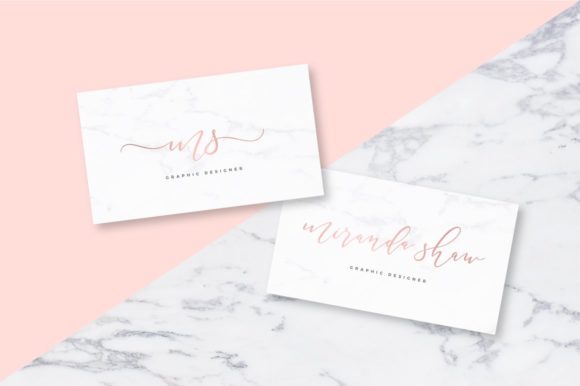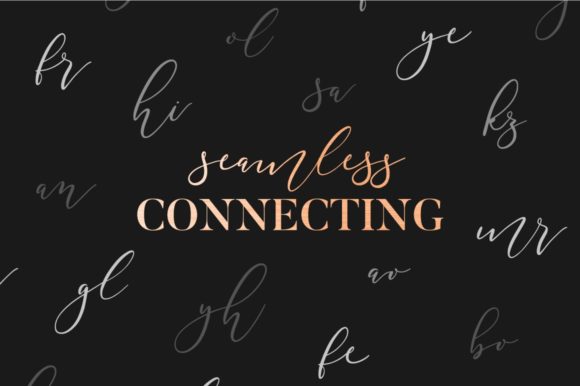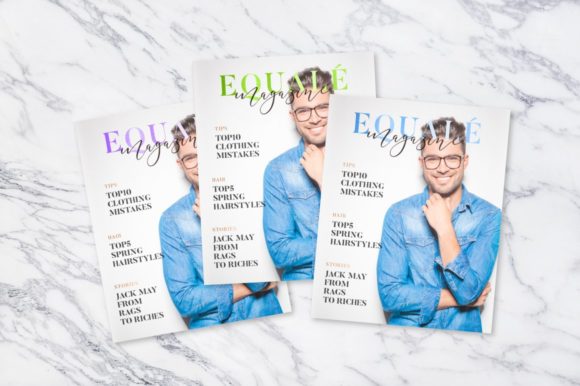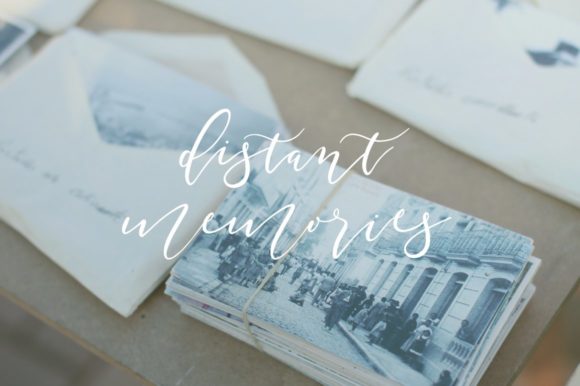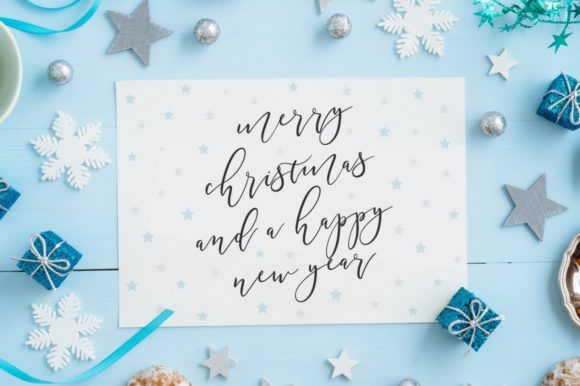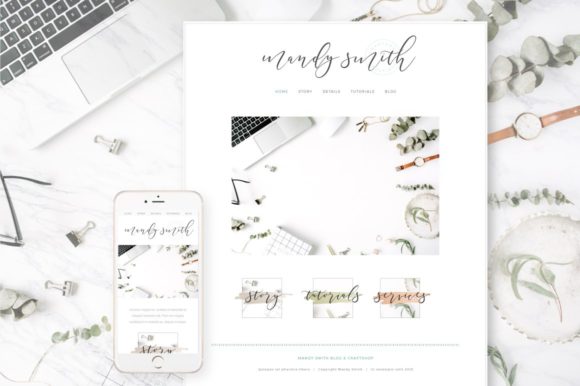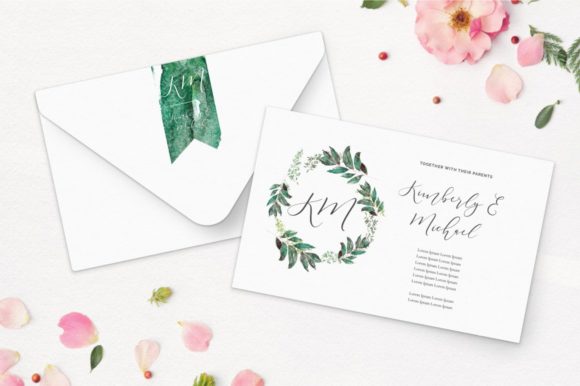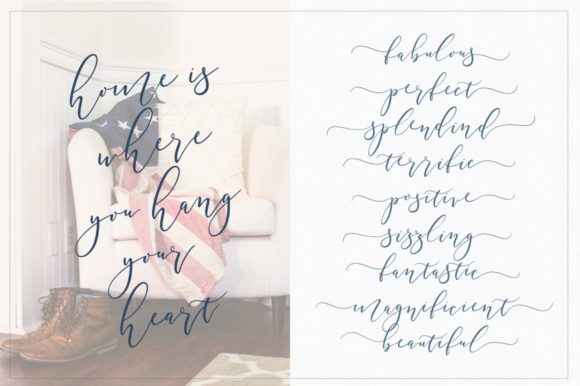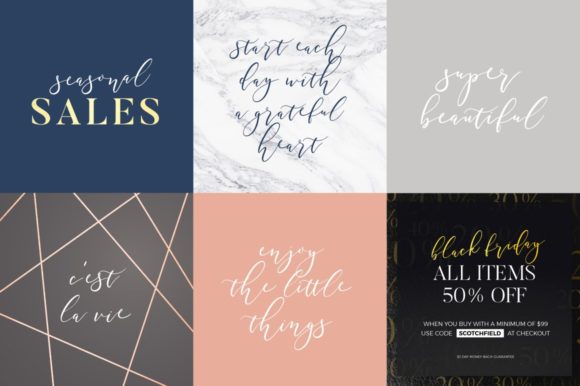
Southfield Font
About Southfield Font
Southfield is a luxurious and unique script with an incredibly warm and friendly look. It will make a great addition to any crafting project.